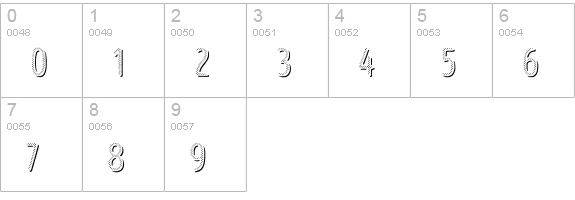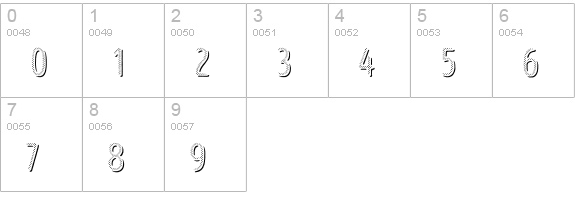
Intro Head R H1 Shade Font Details
The Intro Head R H1 Shade font is a bold and striking typeface that exudes modernity and sophistication. Its sleek and stylish design makes it perfect for creating eye-catching headlines, titles, and logos. The unique shading effect adds a dynamic touch to any text, making it stand out from the crowd. What's even better is that this fantastic font is available for free download at FontsMarket.com. Whether you're working on a design project, creating marketing materials, or simply want to add a touch of flair to your documents, the Intro Head R H1 Shade font is a versatile and impactful choice. Download it today and unleash your creativity with this beautiful typeface!